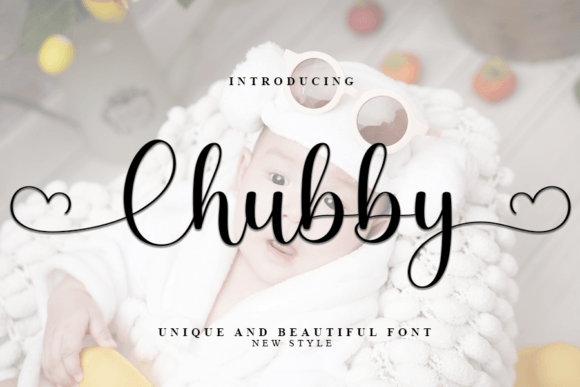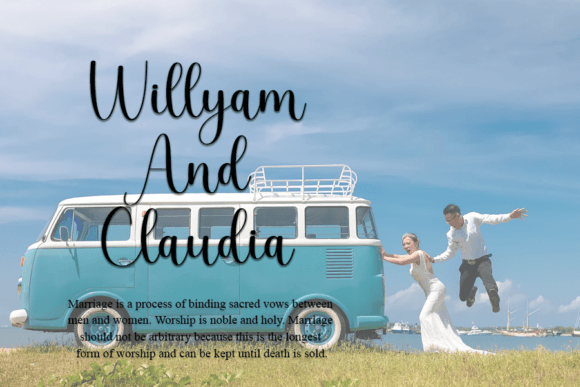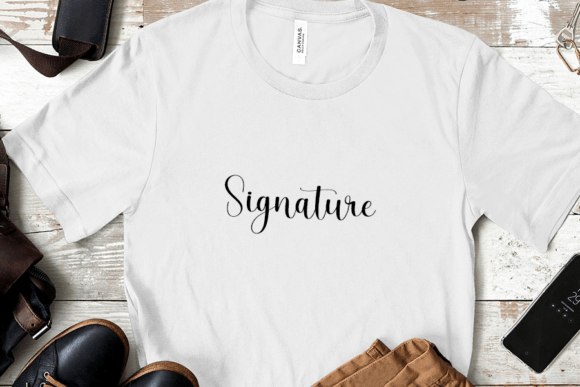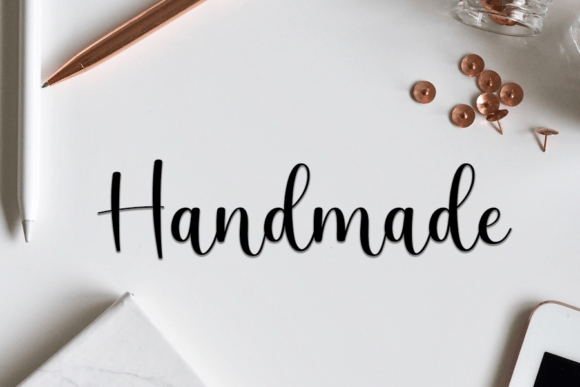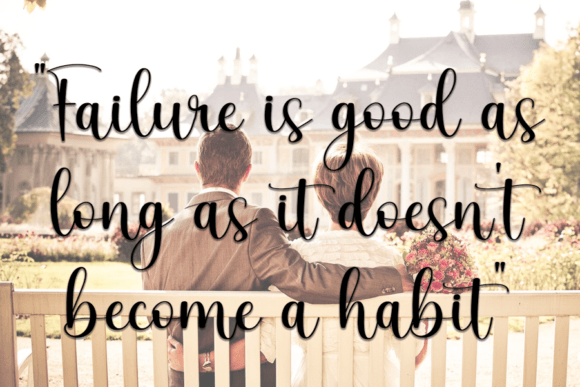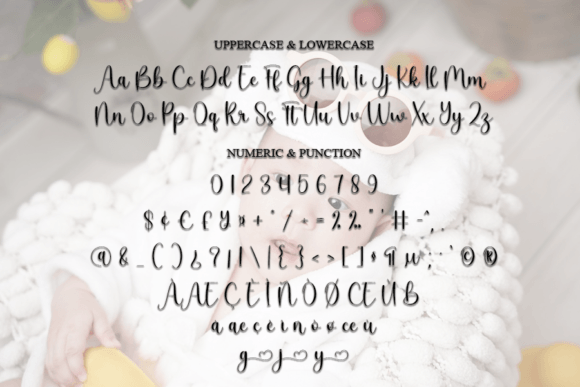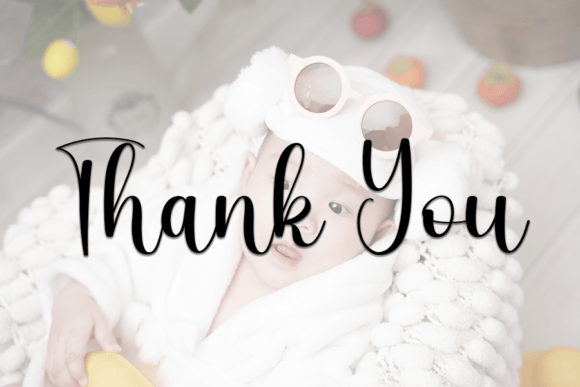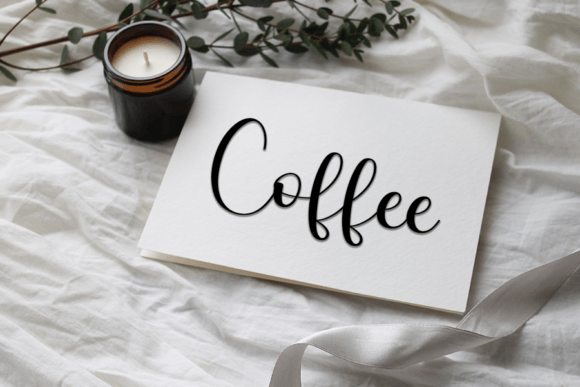
Chubby Font
About Chubby Font: Delicate Handwritten Typeface for Unique Designs
Chubby font is a delicate and carefully crafted handwritten typeface designed to bring a cool and unique style to your creative projects. This font features smooth strokes and a charming character that fits a variety of applications. Whether you want to add a personal touch to letters, invitations, food product labels, or titles, Chubby font offers the right balance of elegance and originality.
Ideal for Letters and Invitations
Chubbyfont’s soft and flowing style makes it an excellent choice for writing letters and invitations. Its delicate appearance adds warmth and friendliness, making your written messages more engaging and heartfelt. Whether you’re creating wedding invitations or personal notes, this font helps set a memorable tone.
Perfect for Food Packaging and Product Titles
In the world of food products, packaging design plays a crucial role. Chubbyfont provides a stylish and approachable feel that can enhance your product labels and packaging designs. It’s also ideal for titles, adding a distinct personality to your creative works and helping your designs stand out on shelves or online.
Features of Chubby Font
One of Chubby’s key strengths is its versatility. The font maintains legibility while offering a handwritten charm. Its delicate strokes and balanced letterforms create a natural, handcrafted look that appeals to both modern and traditional design aesthetics.
How to Use Chubby Font in Your Projects
Use Chubbyfont to add elegance and a unique style to your branding, stationery, packaging, and more. It works well in both digital and print formats, allowing designers to create warm, personal, and visually appealing projects with ease.